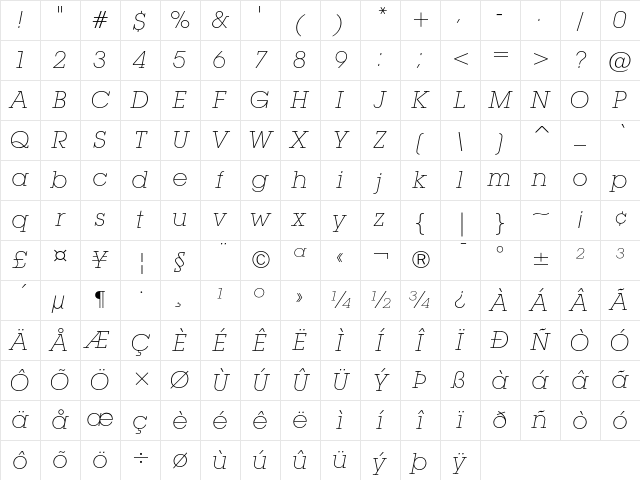
ITC Lubalin Graph Extra Light Oblique
Style: Extra Light Oblique
Complete ITC Lubalin Graph Extra Light Oblique glyph index. Displaying only characters natively supported by ITC Lubalin Graph Extra Light Oblique font.
Design Context for ITC Lubalin Graph
ITC Lubalin Graph is a composed and adaptable typeface that performs quietly and consistently across a wide range of design contexts. The slanted form adds forward momentum and visual energy. Its slender proportions lend an understated elegance to any composition.
Pro Tip: Use ITC Lubalin Graph for emphasis, pull quotes, and subheadings where its slanted energy can add rhythm to the layout.